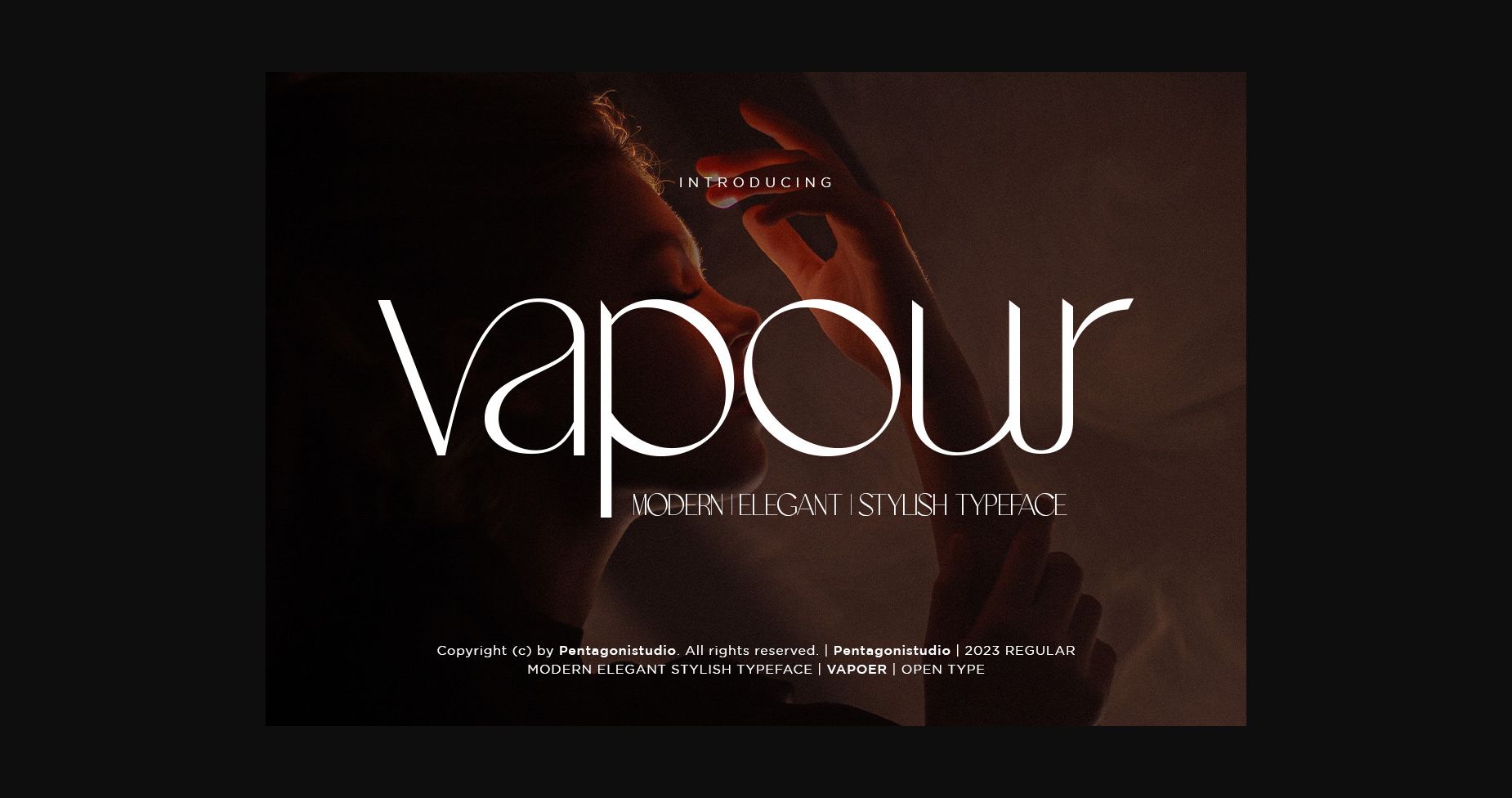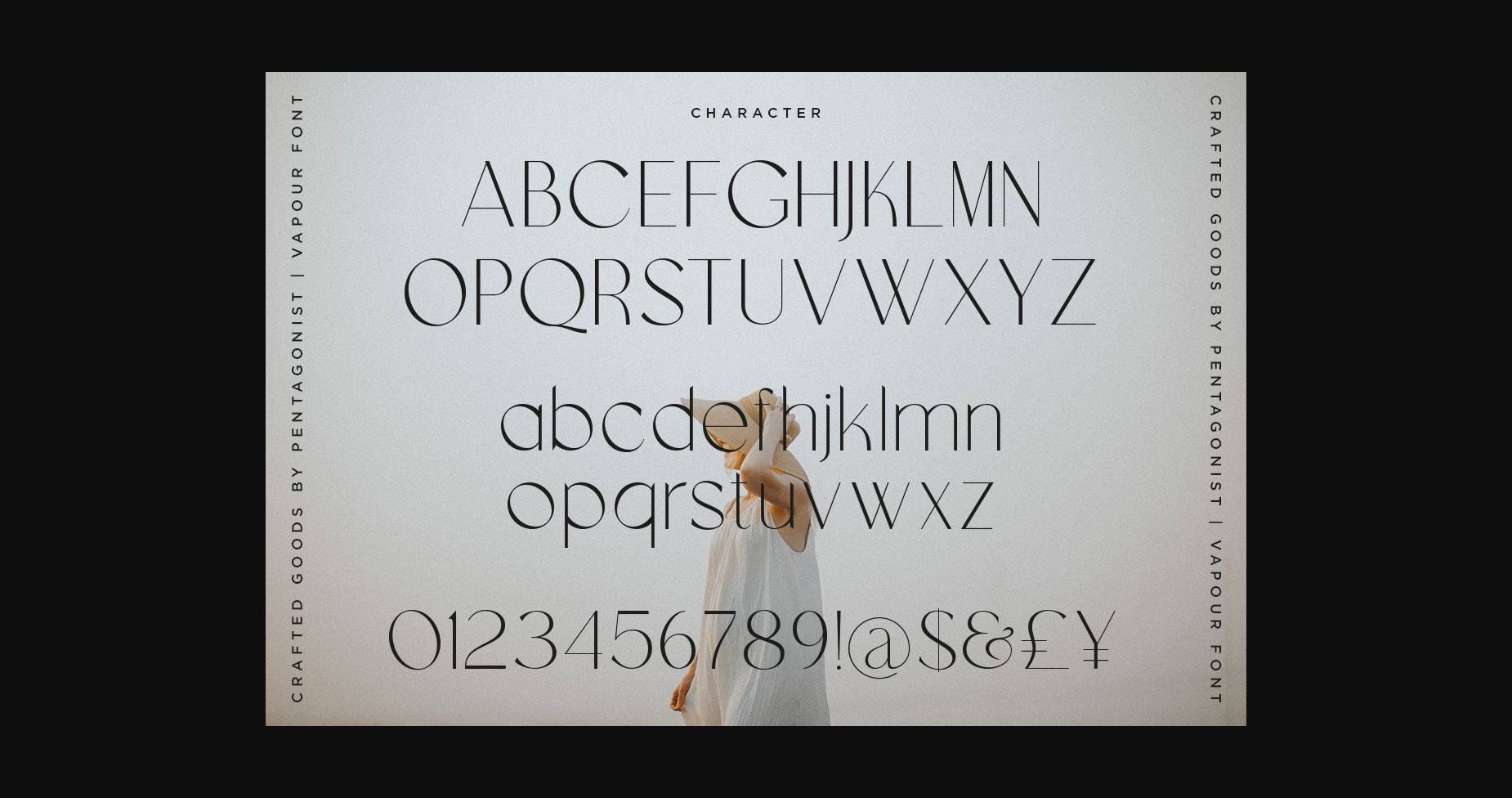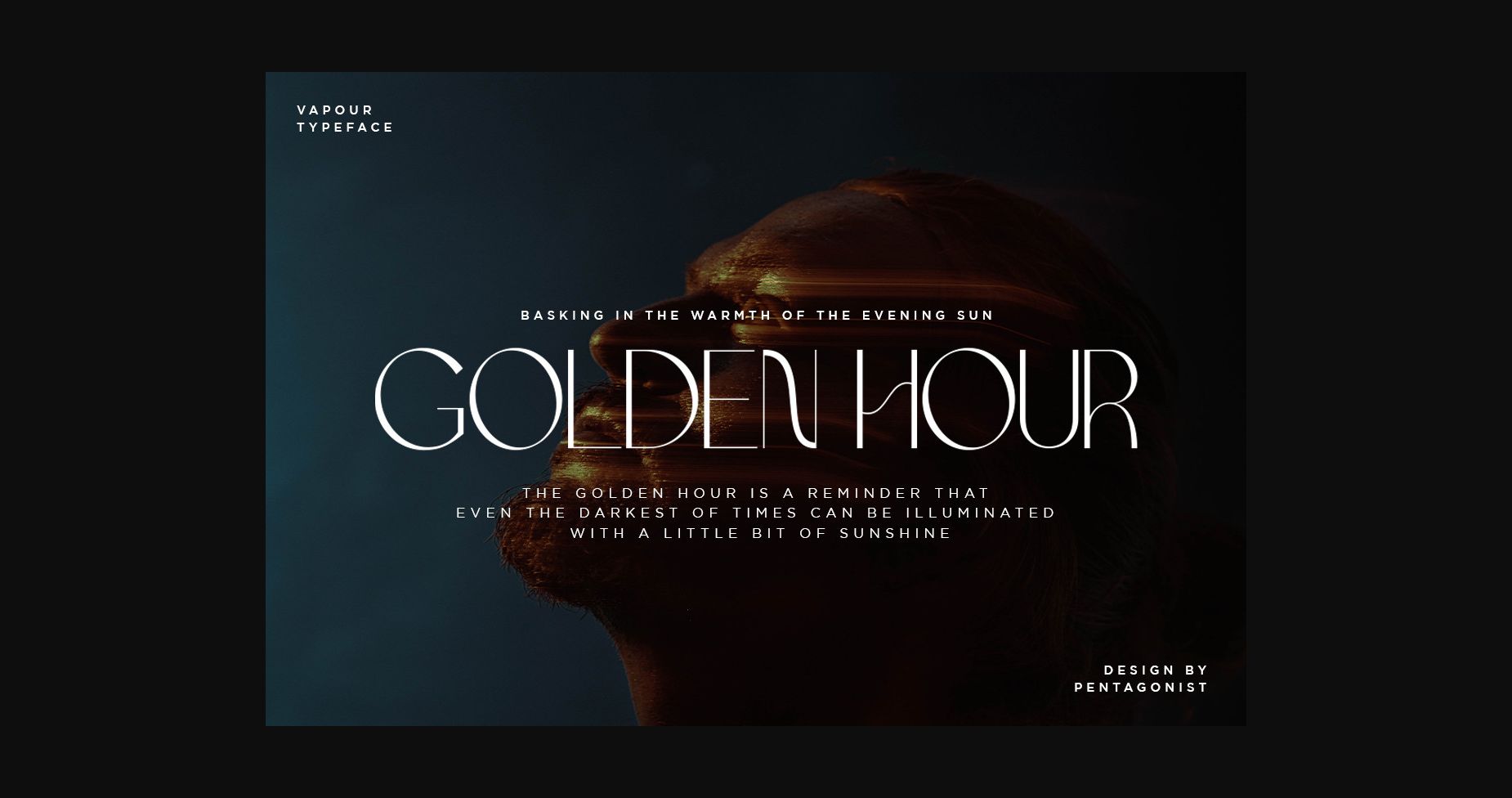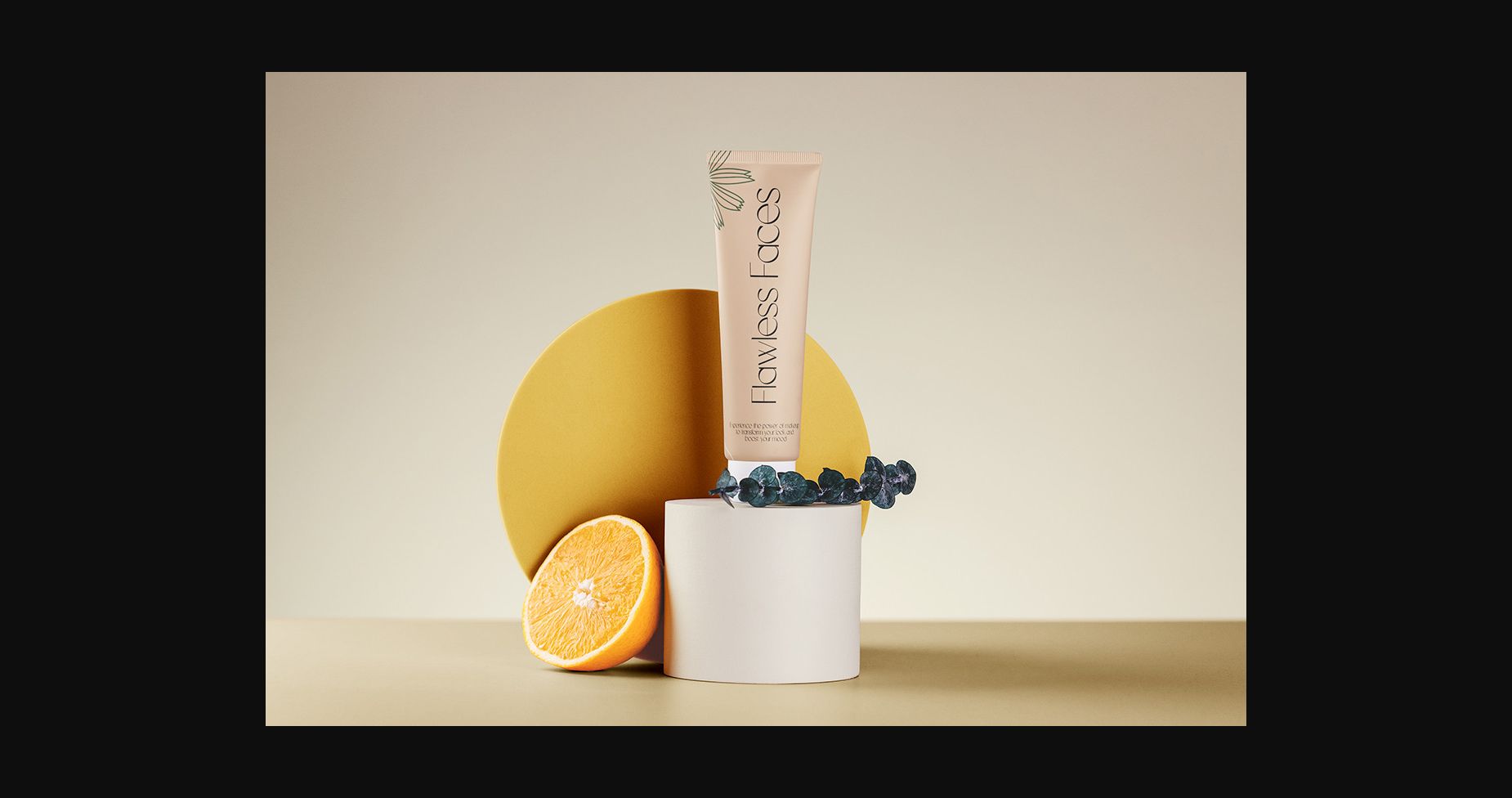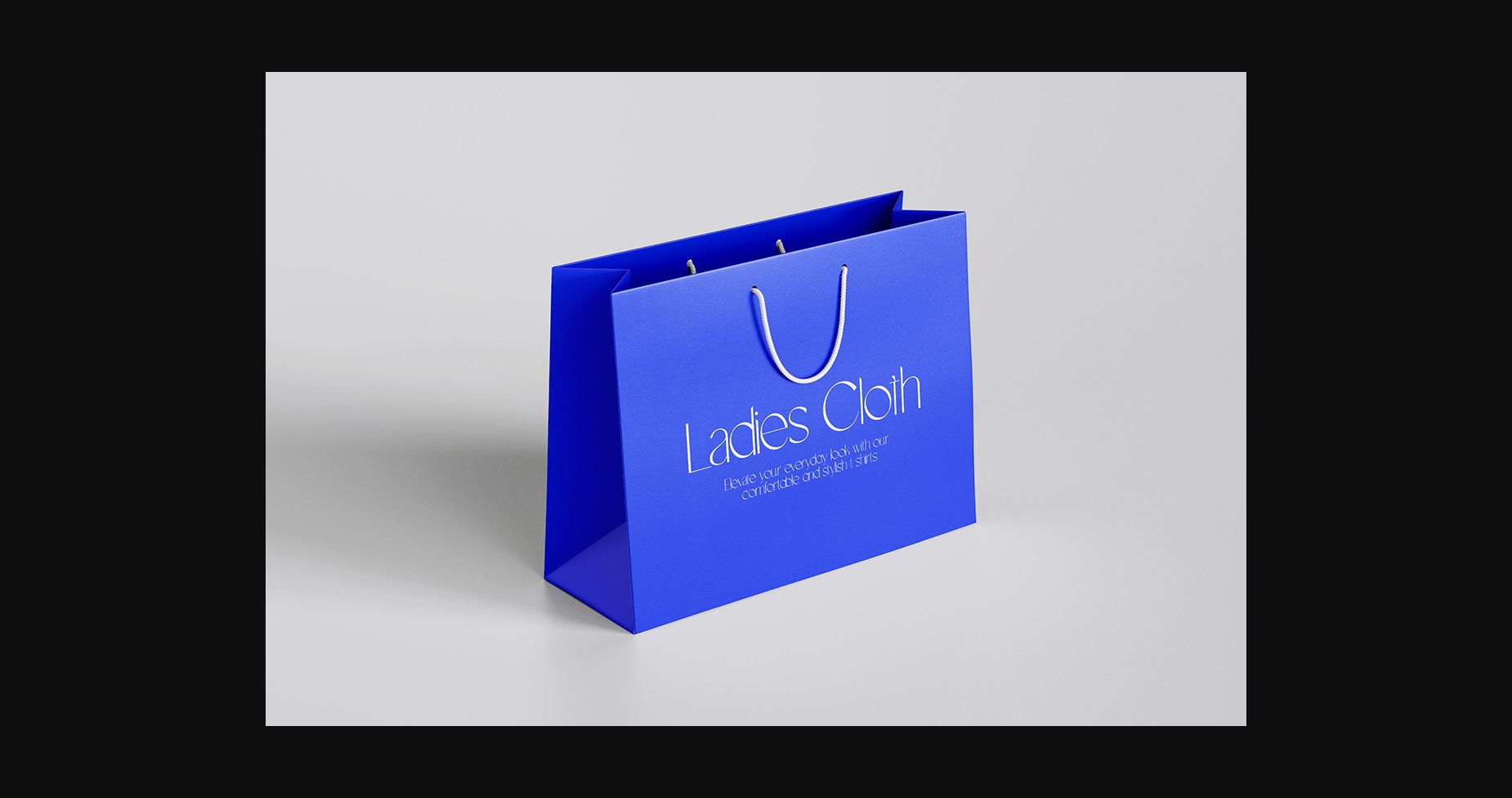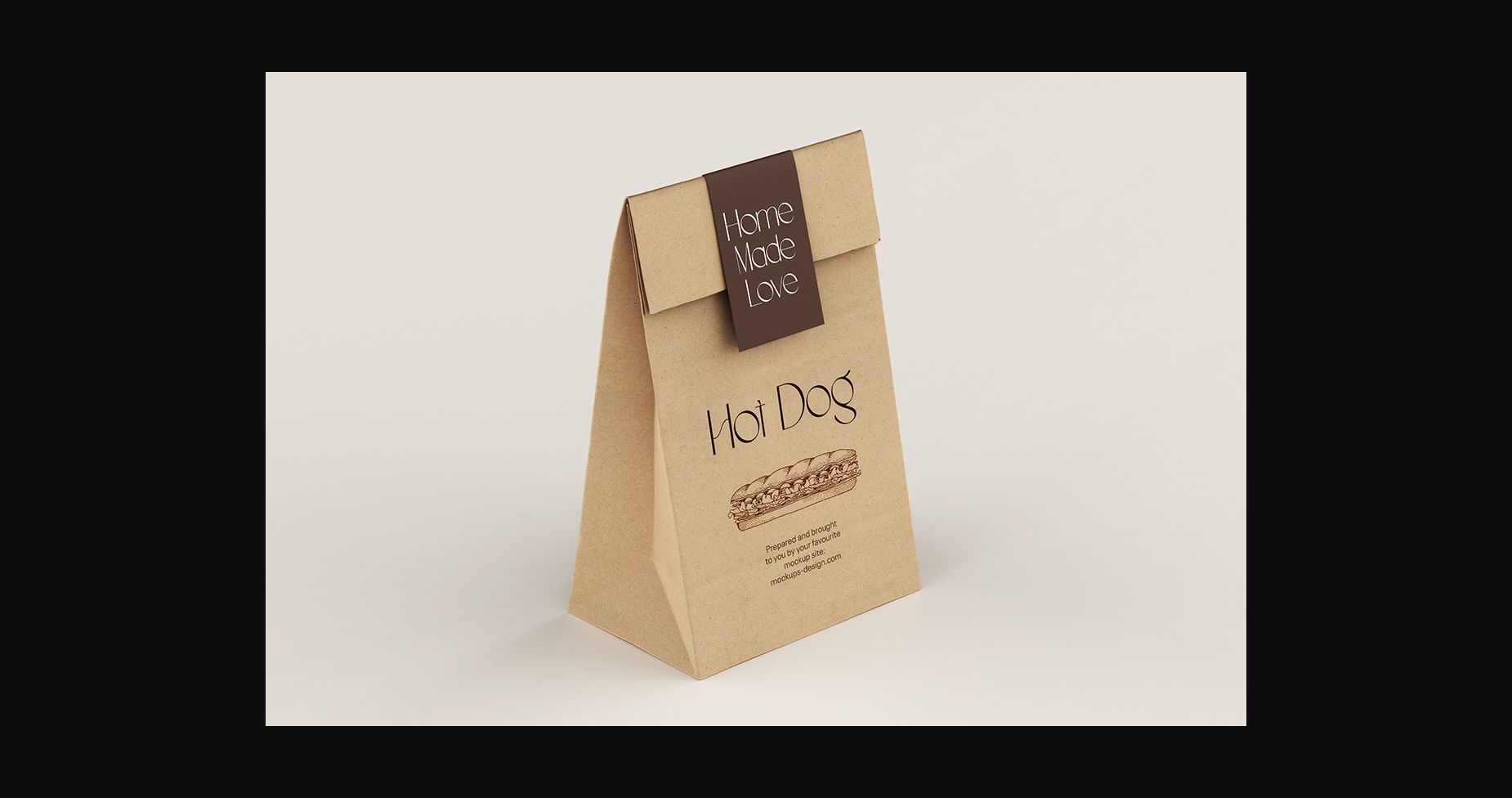
About Vapour Font
Vapour Is An Elegant/Modern Sans Serif Font with Stylistic Alternates and Ligatures. It works best when used in headlines such as magazine covers, packaging design, perfume design, and cosmetics. Use it confidently in your creation and you will notice the incredible touches it can add to your creations.